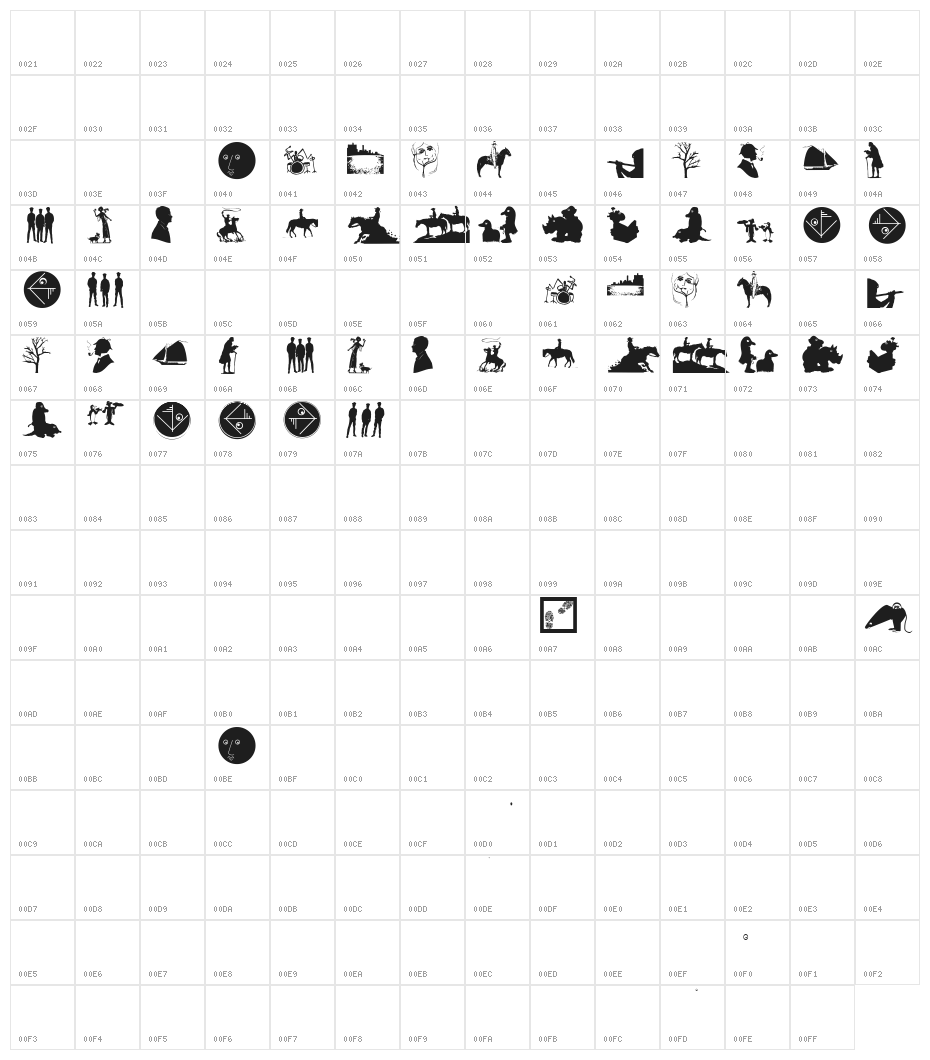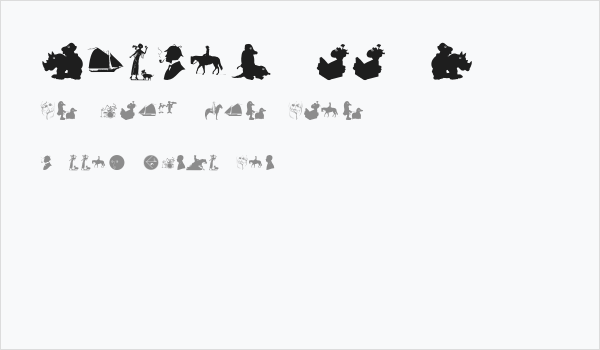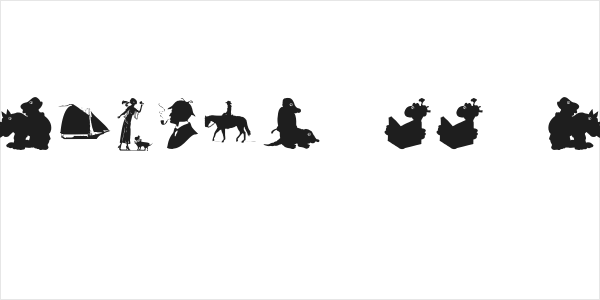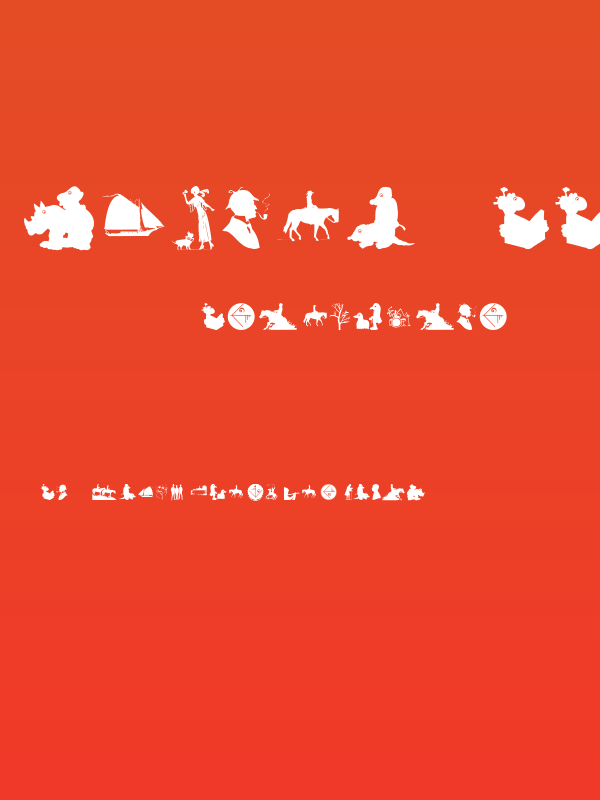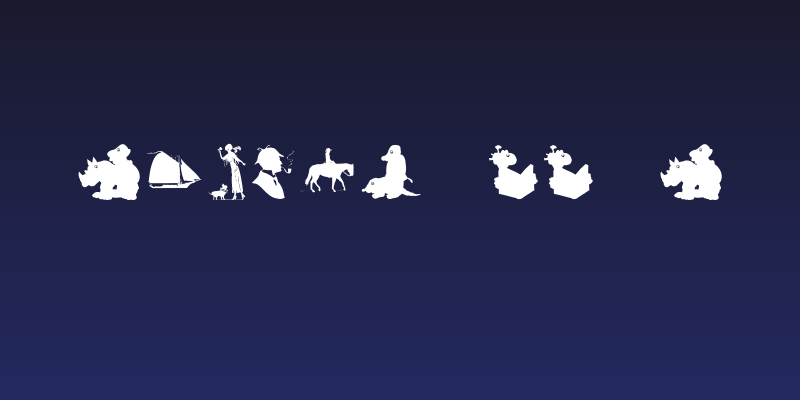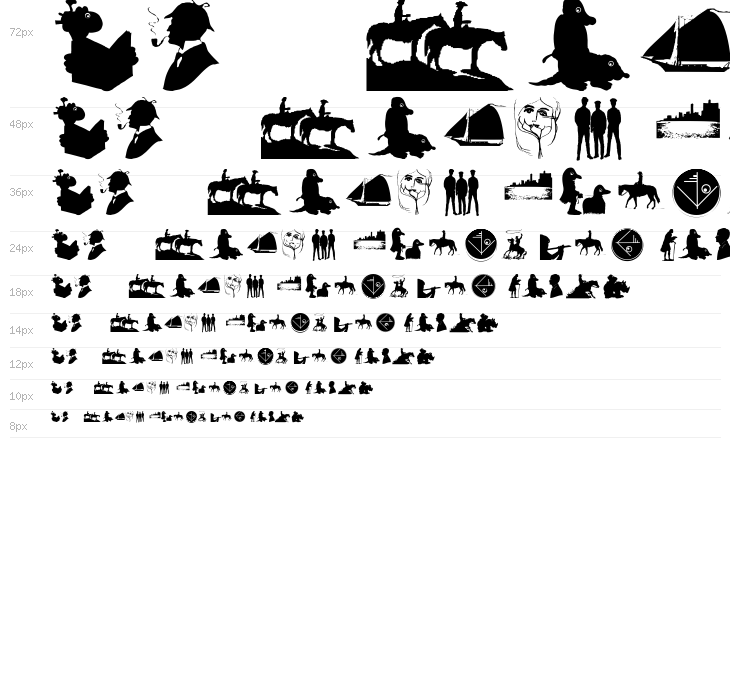
SIlhouettes02 Font
SIlhouettes02 Description
A decorative font composed entirely of detailed black silhouettes, including people, animals, cityscapes, and abstract icons. Each character is represented by a unique silhouette, giving the font a pictorial and illustrative appearance rather than traditional letterforms.
| Overall Style | Decorative, Illustrative, Playful |
| Use Case | Logos, Posters, Themed Headlines, Visual Art Projects |
| Proposed Projects | Posters, themed event invitations, educational materials, creative branding, visual storytelling, and scrapbooking. |